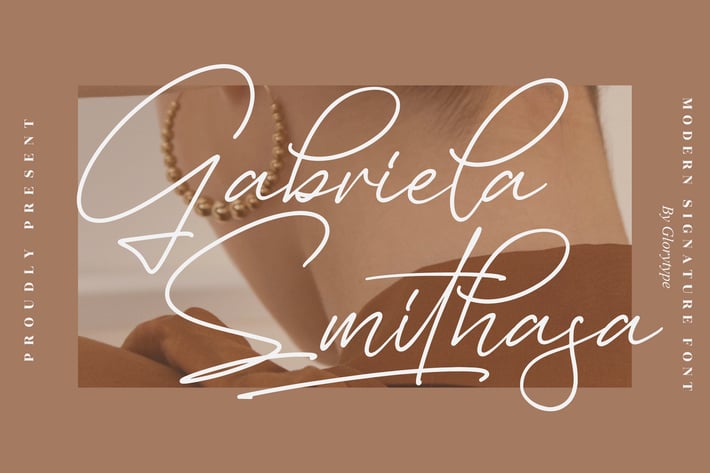
Gabriela Smithasa Modern Signature Font
Gabriela Smithasa is an elegant modern signature font that embodies sophistication and grace with its smooth, flowing curves. The carefully crafted strokes give it a handwritten feel, ideal for designs that aim to project a personal, luxurious touch. Perfect for a wide range of applications from branding to invitations and everything in between.
Smooth, flowing signature style with delicate flourishes
Includes Regular and Italic versions
Crafted for luxury branding and high-end projects
Ideal for invitations, logos, and social media
Multilingual support for global appeal
Wedding invitations and personal events
High-end branding and logos
Stylish social media posts and content
Business stationery and product packaging
Custom calligraphy and signage
Elevate your brand with Gabriela Smithasa, a signature font that combines elegance and personality.*